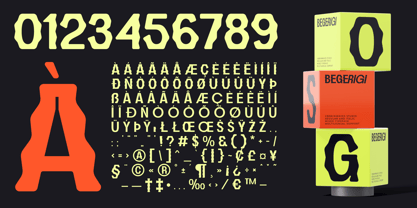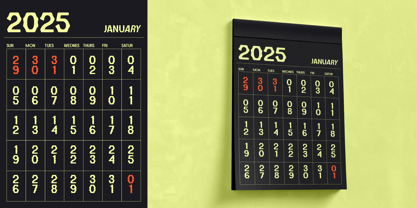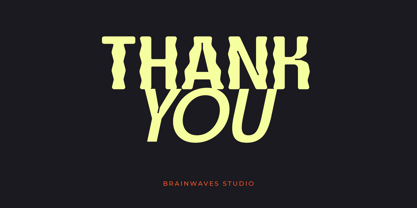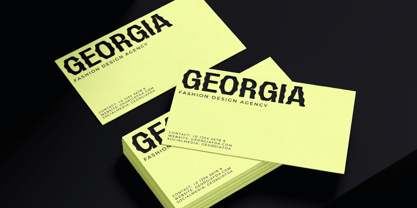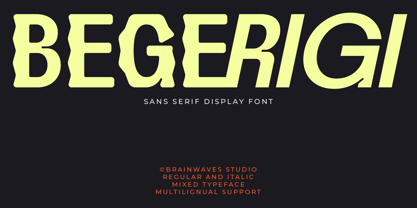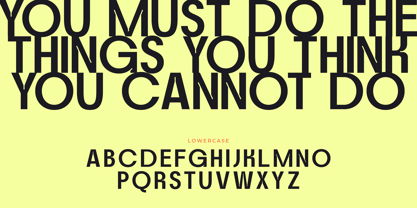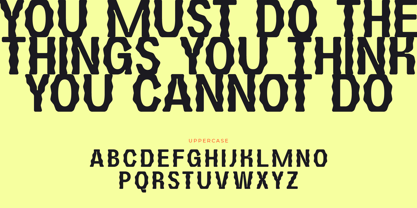
Begerigi Display
by Brainwaves Studio
The Begerigi Display Font Family was designed by Lucky Fitriadi and published by Brainwaves Studio. Begerigi Display contains 2 styles and family package options. More about this family
Begerigi is a striking sans-serif display font that dares to break the mold. Blending clean, structured forms with raw, wavy distortions, it creates an energetic contrast that demands attention. Whether you're designing bold headlines, edgy branding, or experimental layouts, Begerigi brings a unique rhythm to your typography.
What Makes Begerigi Unique?
• Unconventional Aesthetic - A perfect mix of solid and irregular forms, giving your designs a rebellious yet stylish edge.
• Versatile Styles - Available in both regular and italic variations, allowing seamless integration into various creative projects.
• Multilingual Support - Communicate your vision globally with extensive character support.
• Perfect for Impactful Design - Ideal for posters, branding, editorial headlines, album covers, and anything that needs to stand out.
Designers: Lucky Fitriadi
Foundry: Brainwaves Studio